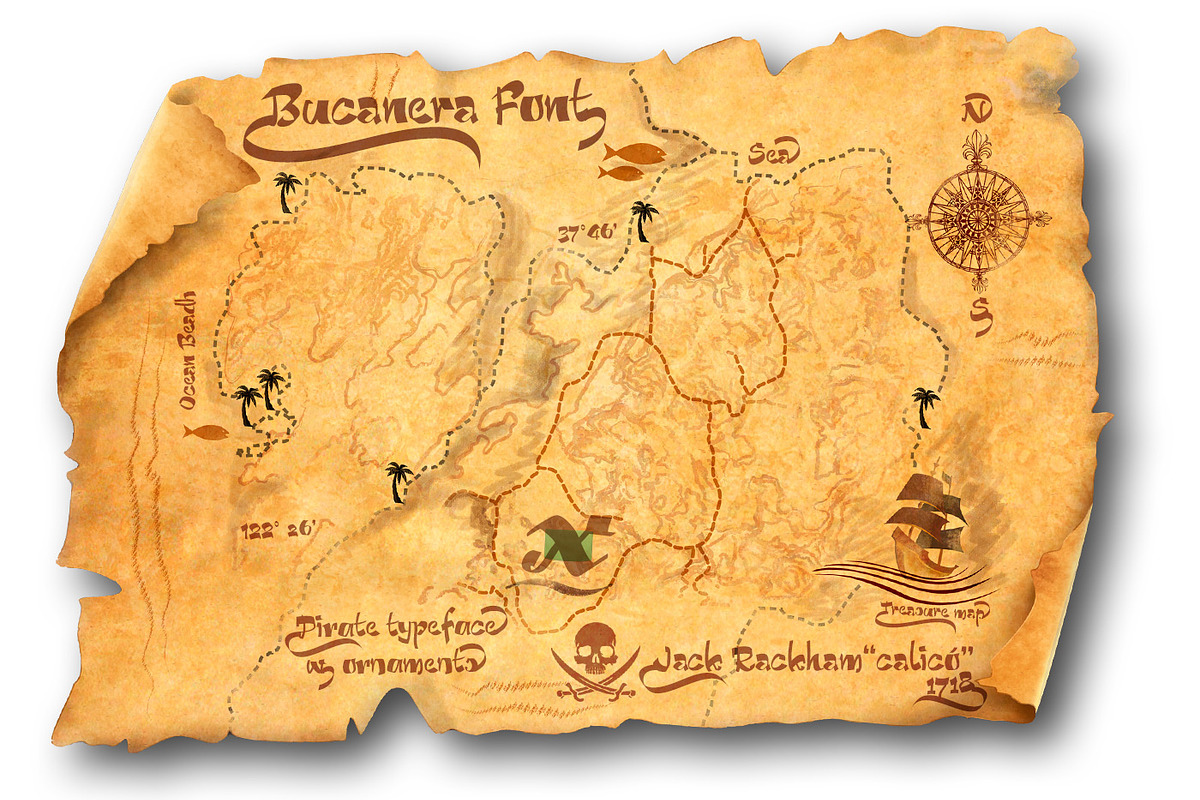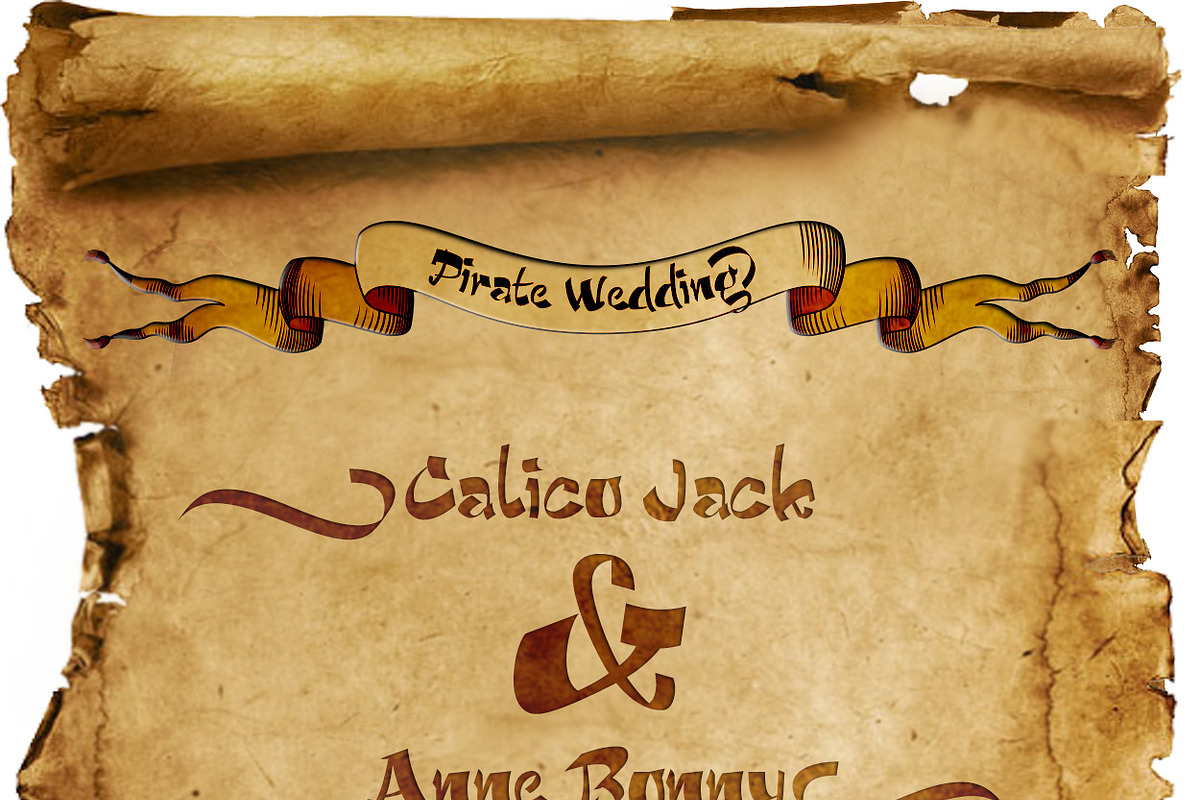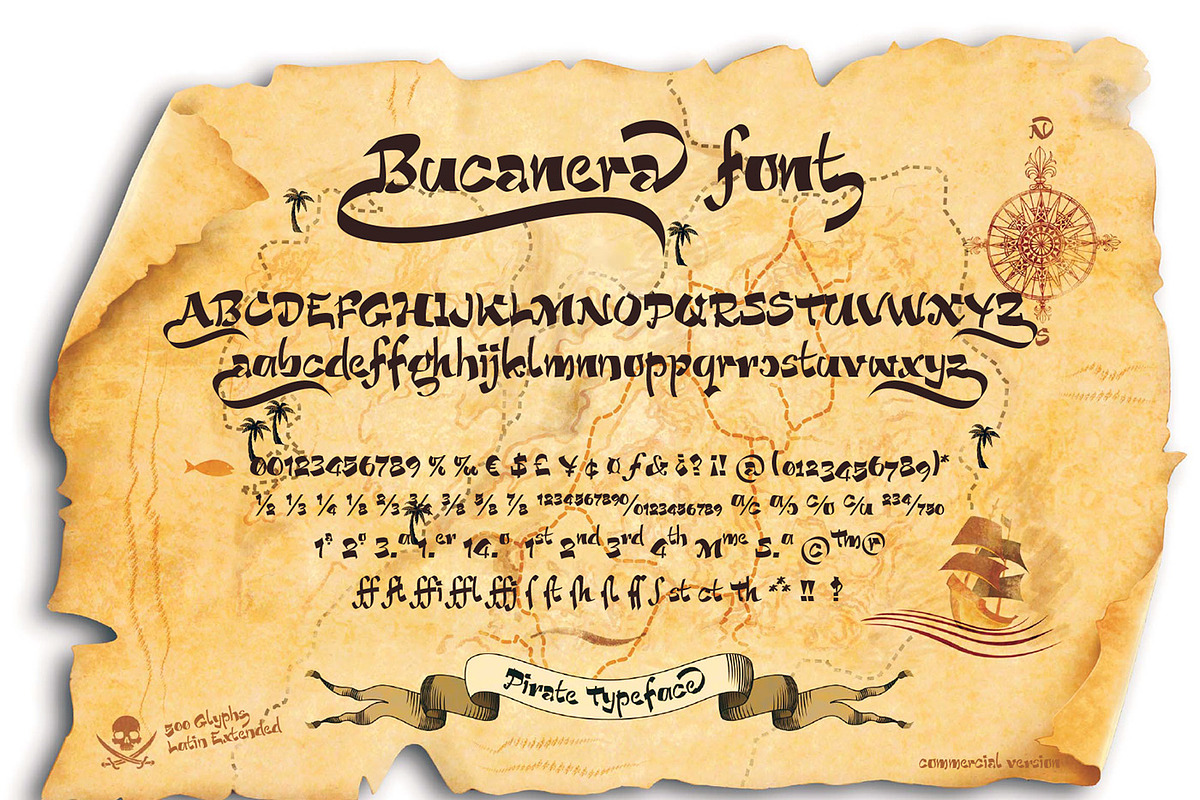
Bucanera font
Bucanera font by deFharo is a font selected for branding, posters, packaging, typography.
- OpenType features: Alternate characters • Numbers old style • Ligatures • Fractions • Currencies • Denominators • Numerators • Swashes • Sla
Why Bucanera font is worth a look
Bucanera font by deFharo fits naturally into Branding, posters, packaging, typography.